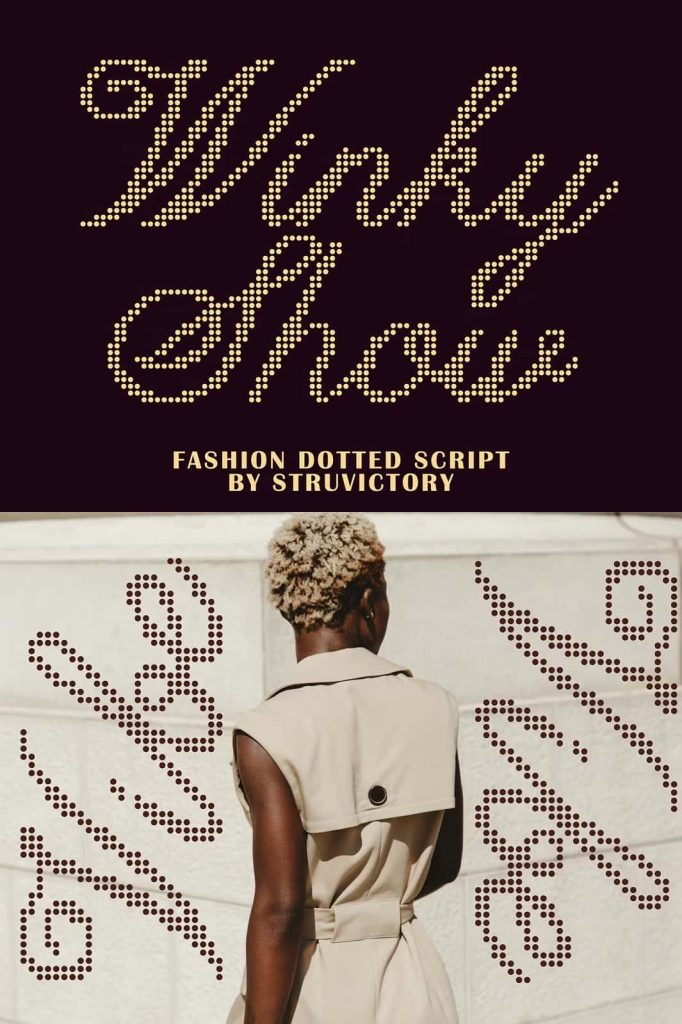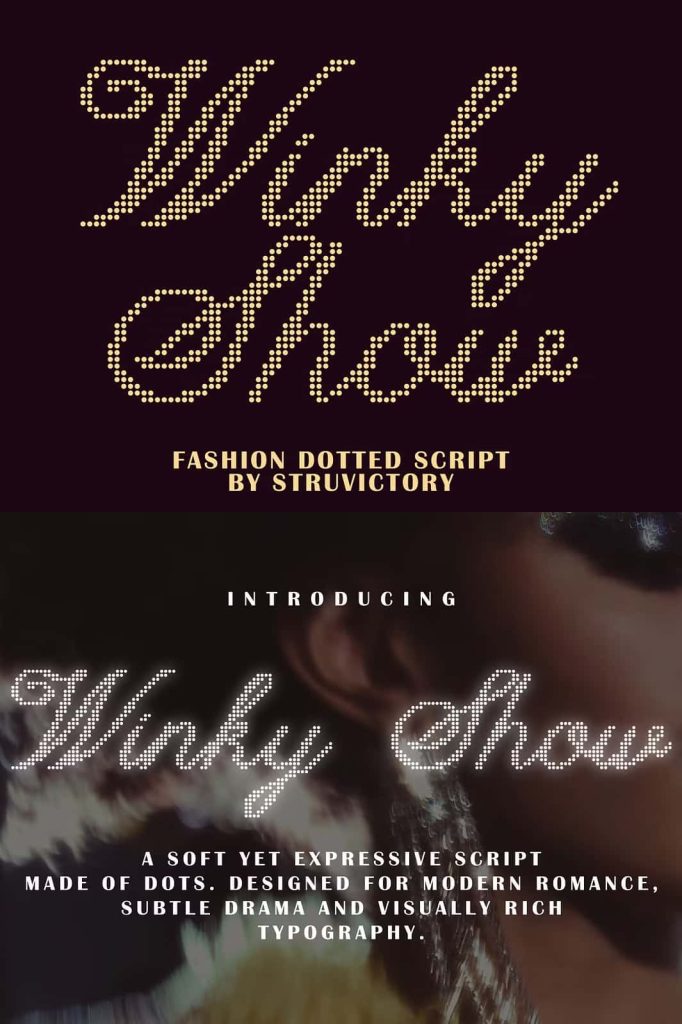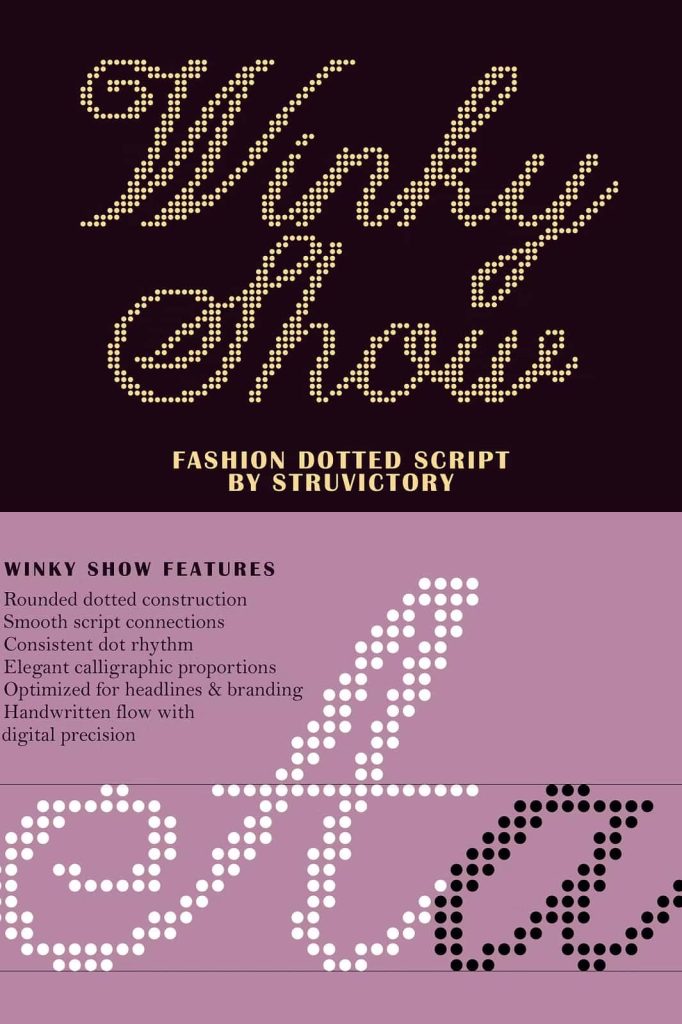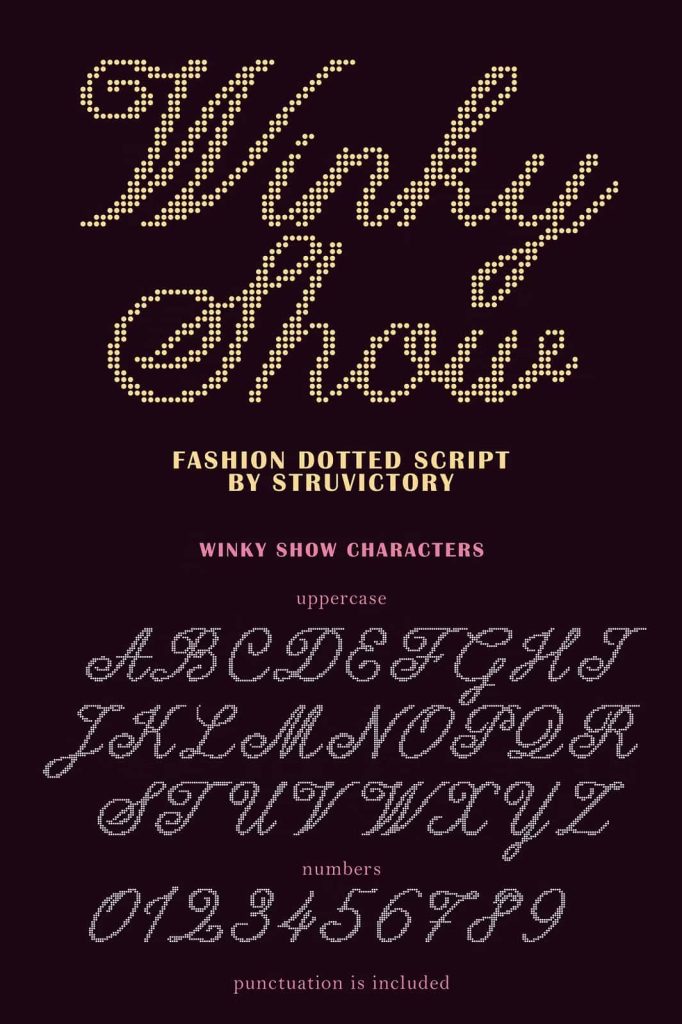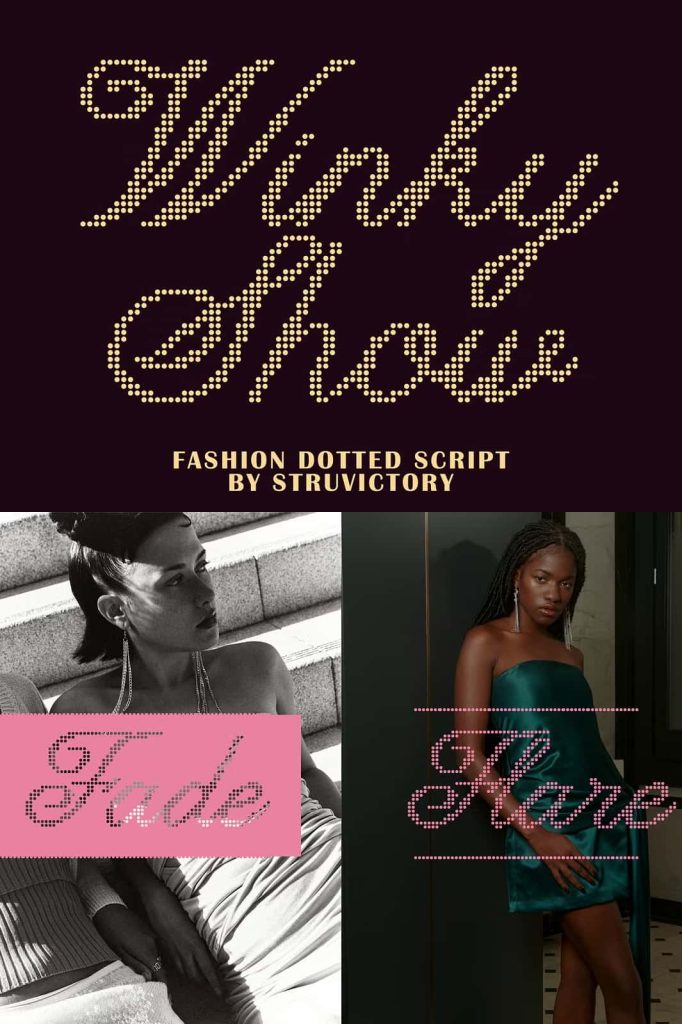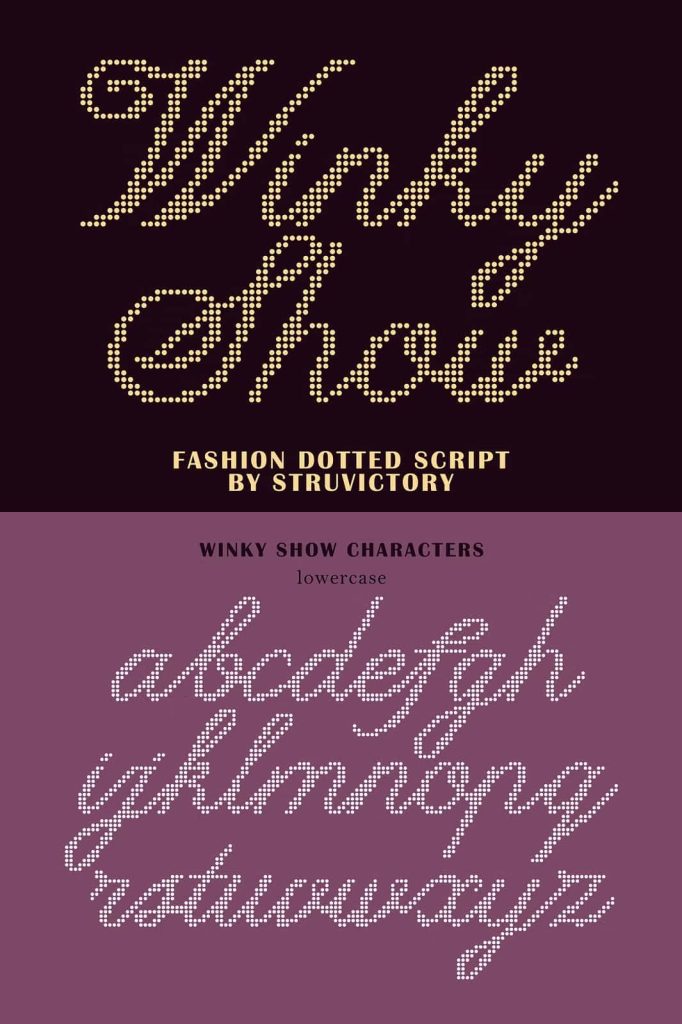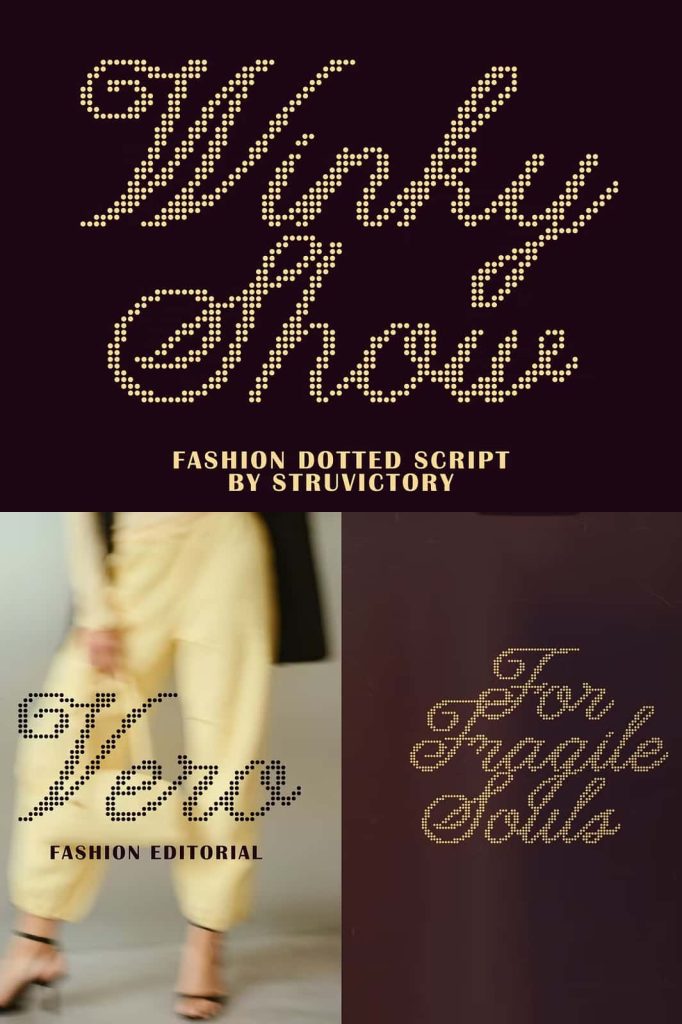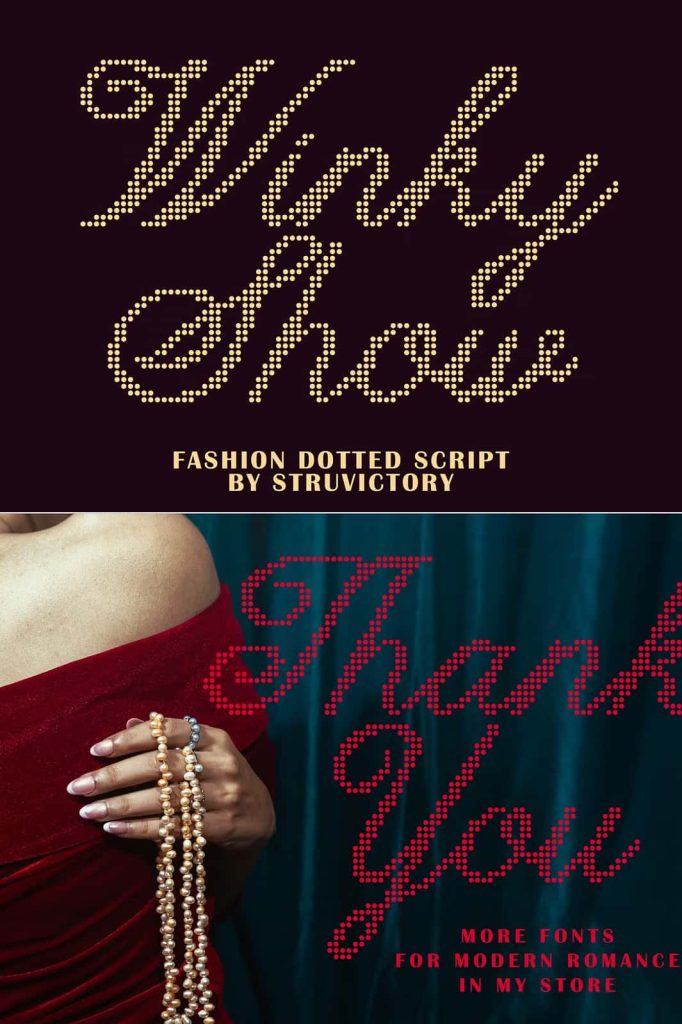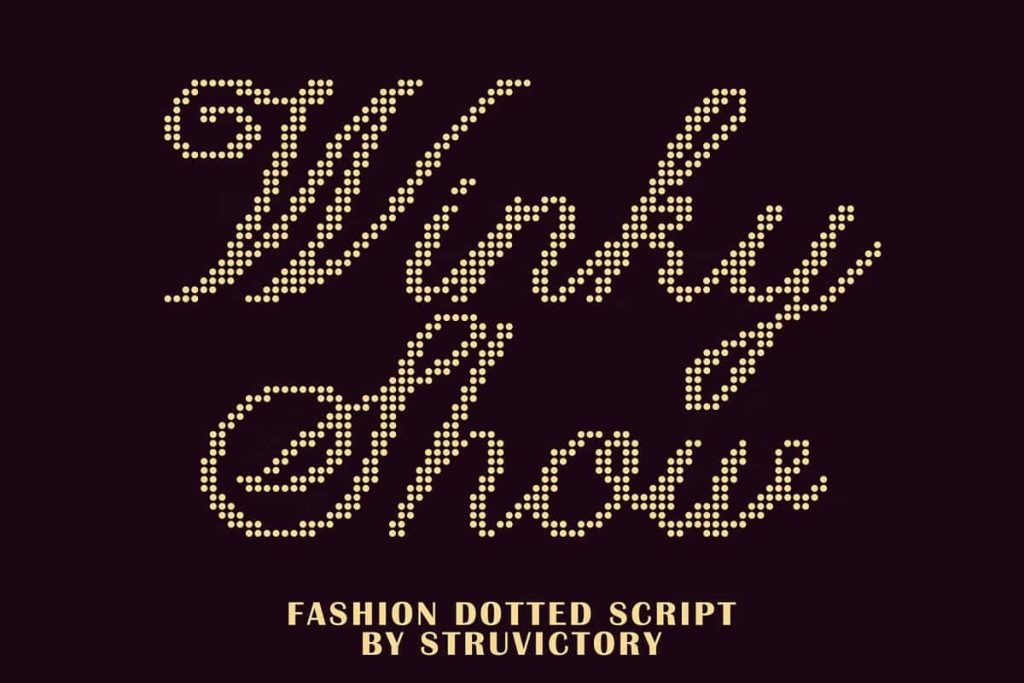
Winky Show Dotted Art Fashion Script
Winky Show Dotted Script Font for Modern Expressive Design
Winky Show is a distinctive dotted script font that merges the elegance of handwritten lettering with the precision of digital design. Built entirely from rounded dots, this typeface creates a soft and rhythmic flow that feels both delicate and visually striking. Its modern aesthetic makes it an excellent choice for designers who want to craft unique, fashion-forward visuals that stand out while maintaining clarity and balance.
Innovative Dotted Structure with Unique Character
What sets Winky Show apart is its fully dotted construction. Each letter is carefully formed using rounded dots, resulting in a texture that feels light, airy, and artistic. This design approach introduces a subtle pattern that enhances visual interest without overwhelming the composition.
The dotted structure also gives the font a distinctive identity. It transforms simple text into a design element, allowing typography to play a central role in your creative projects.
Soft and Rhythmic Flow
Despite its unconventional form, Winky Show maintains a smooth and natural flow. The dots connect seamlessly to create a continuous script style that feels fluid and cohesive. This rhythmic movement adds elegance and sophistication to your designs.
The font’s balanced proportions ensure that each word remains readable, even with its decorative structure. This makes it suitable for display purposes where both style and clarity are important.
Modern Elegance with Digital Precision
Winky Show successfully blends the warmth of handwritten script with the accuracy of digital typography. The result is a font that feels expressive yet controlled. Its clean execution ensures consistency across different design applications, while its artistic style keeps your work engaging and fresh.
This combination allows you to create designs that feel contemporary and refined, making the font ideal for modern creative industries.
Perfect for Branding and Visual Identity
Winky Show provides a unique foundation for branding projects. Its dotted script style helps you create logos and brand elements that feel distinctive and memorable. The font communicates creativity and sophistication, making it suitable for fashion, lifestyle, and boutique brands.
You can use it to build a visual identity that stands out while maintaining a polished and professional look.
Enhance Editorial and Poster Design
In editorial layouts and poster design, typography plays a key role in capturing attention. Winky Show excels in these areas by offering a bold yet elegant presence. Its dotted texture adds depth and personality, helping your headlines and titles become focal points.
The font works particularly well for magazines, lookbooks, and artistic publications where visual storytelling is essential.
Ideal for Packaging and Social Media Content
Winky Show adapts seamlessly to packaging design, where unique typography can elevate the overall presentation of a product. Its refined dotted style creates a sense of exclusivity and creativity, making products more appealing to consumers.
In social media, the font helps you create eye-catching graphics that stand out in crowded feeds. Its distinctive look encourages engagement while maintaining readability at larger sizes.
Designed for Display Use
Winky Show is specifically crafted for display purposes. Its detailed dotted structure shines best in larger sizes, where the texture and form can be fully appreciated. This makes it ideal for headlines, titles, and key visual elements.
While decorative, the font remains clean and legible, ensuring that your message is communicated effectively. This balance between style and function makes it a reliable choice for creative professionals.
Key Features of Winky Show Font
• Modern dotted script font with unique visual texture
• Rounded dot construction for soft and rhythmic flow
• Combines handwritten elegance with digital precision
• Perfect for branding, editorials, posters, and packaging
• Optimized for display use with strong readability at large sizes
Create Refined and Expressive Designs
Winky Show dotted script font gives you the tools to create designs that feel modern, elegant, and visually engaging. Its innovative structure and balanced proportions allow you to experiment with typography while maintaining clarity and cohesion.
If you want to bring a unique and fashion-forward touch to your projects, Winky Show is an excellent choice. Use it to elevate your branding, enhance your visual storytelling, and create designs that leave a lasting impression.